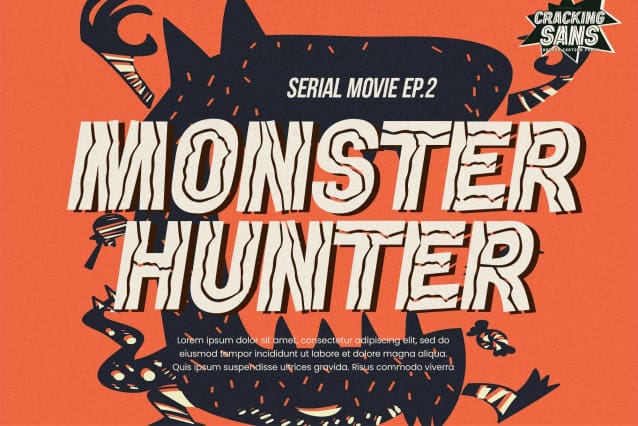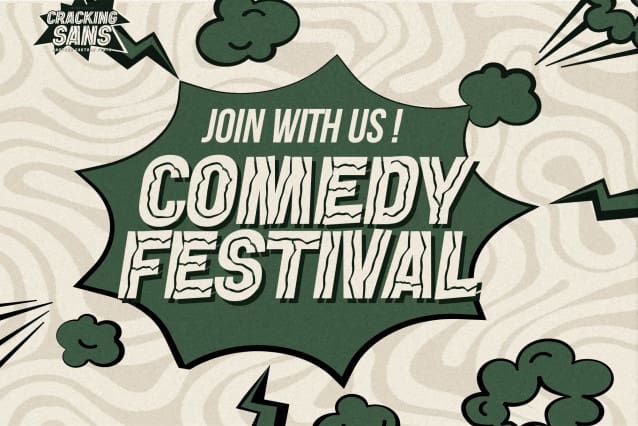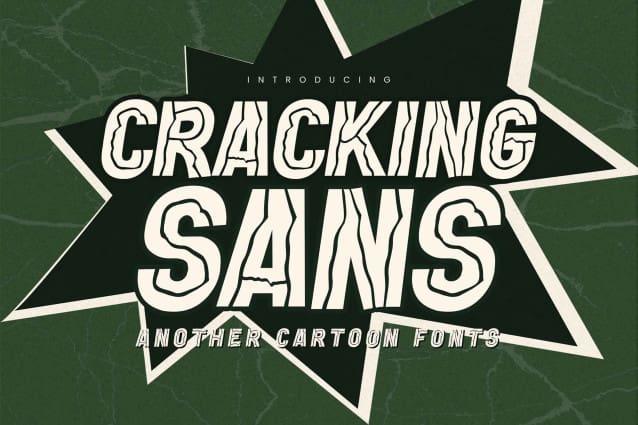
Cracking Sans Font
Cracking Sans Font – This is a Another Cartoon Font, with simple drawing and crack grunge style, this font is perfect for making a strong statement in your designs.
Add the bold and authentic character of this Font to your next project and capture the essence of the minimalist aesthetic.